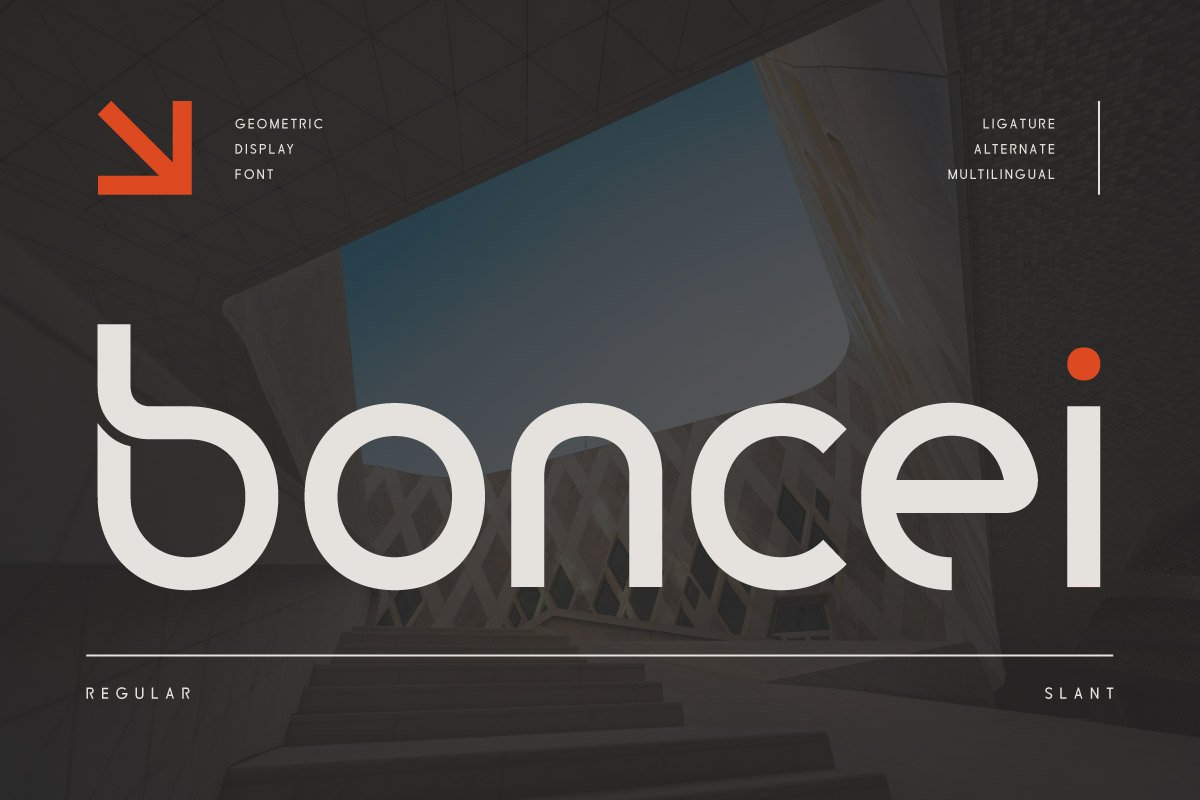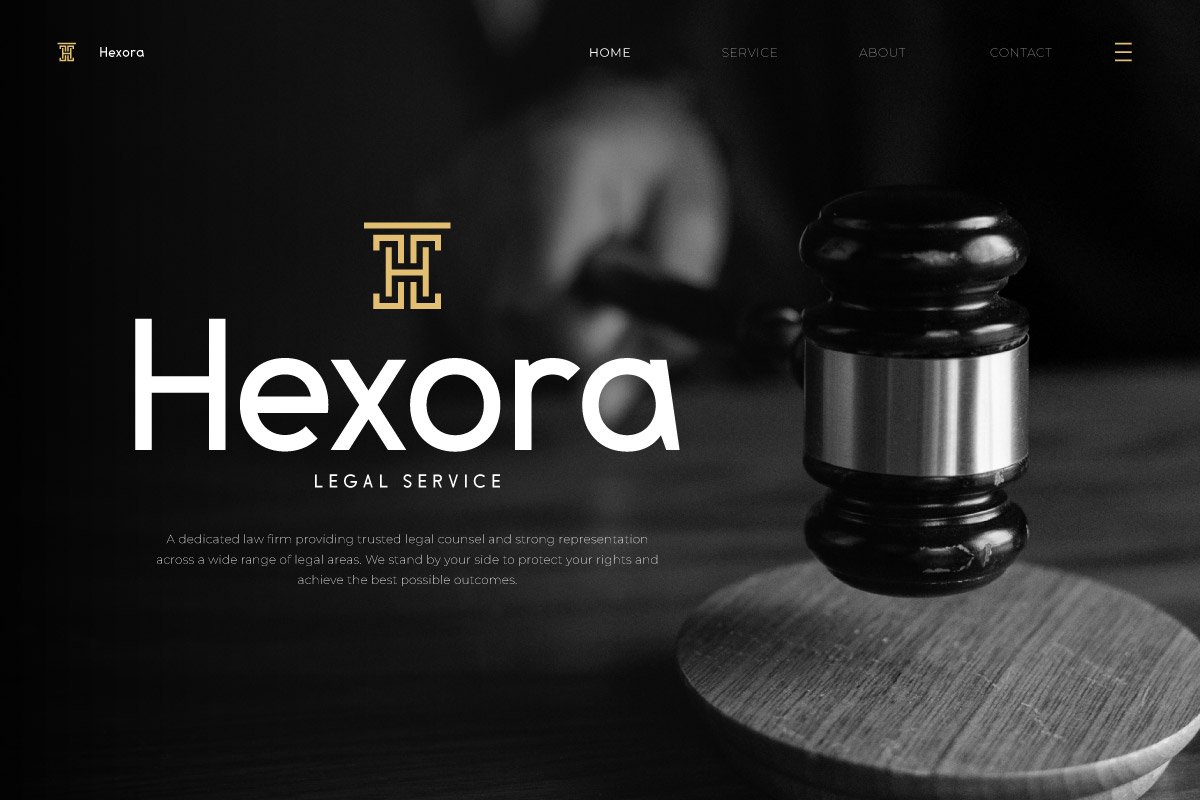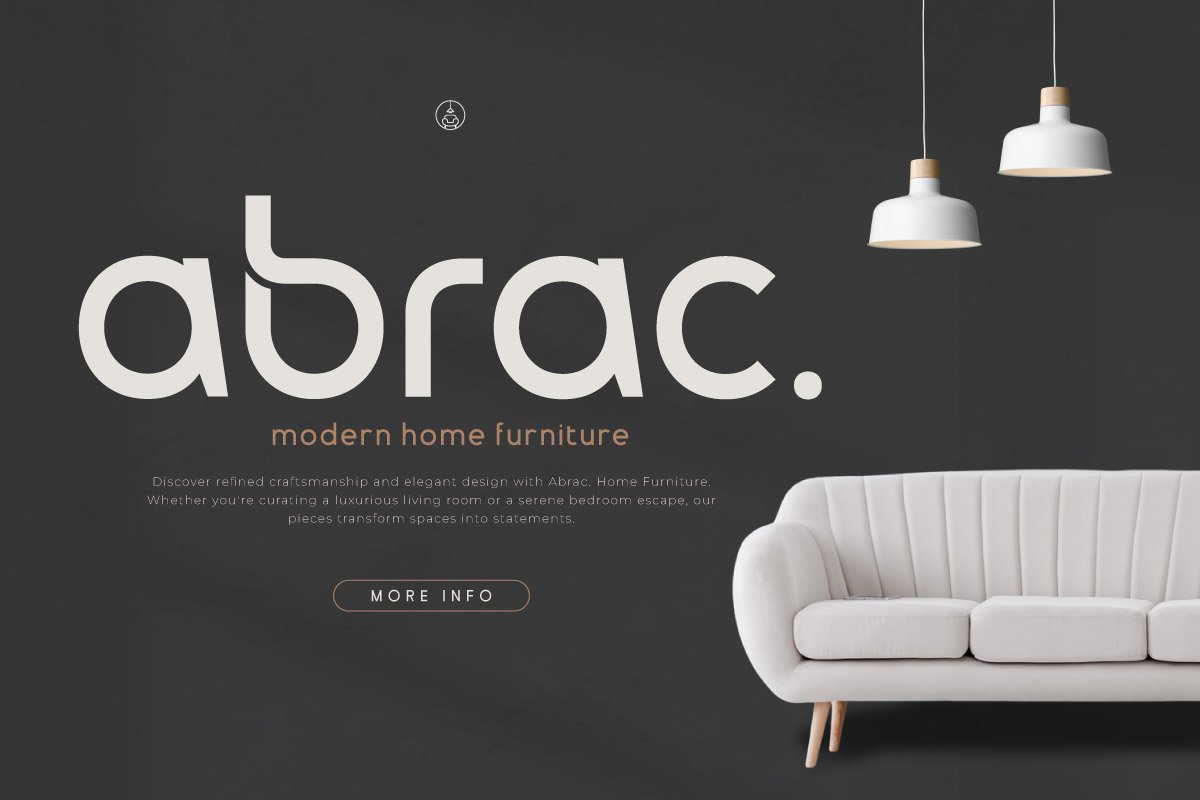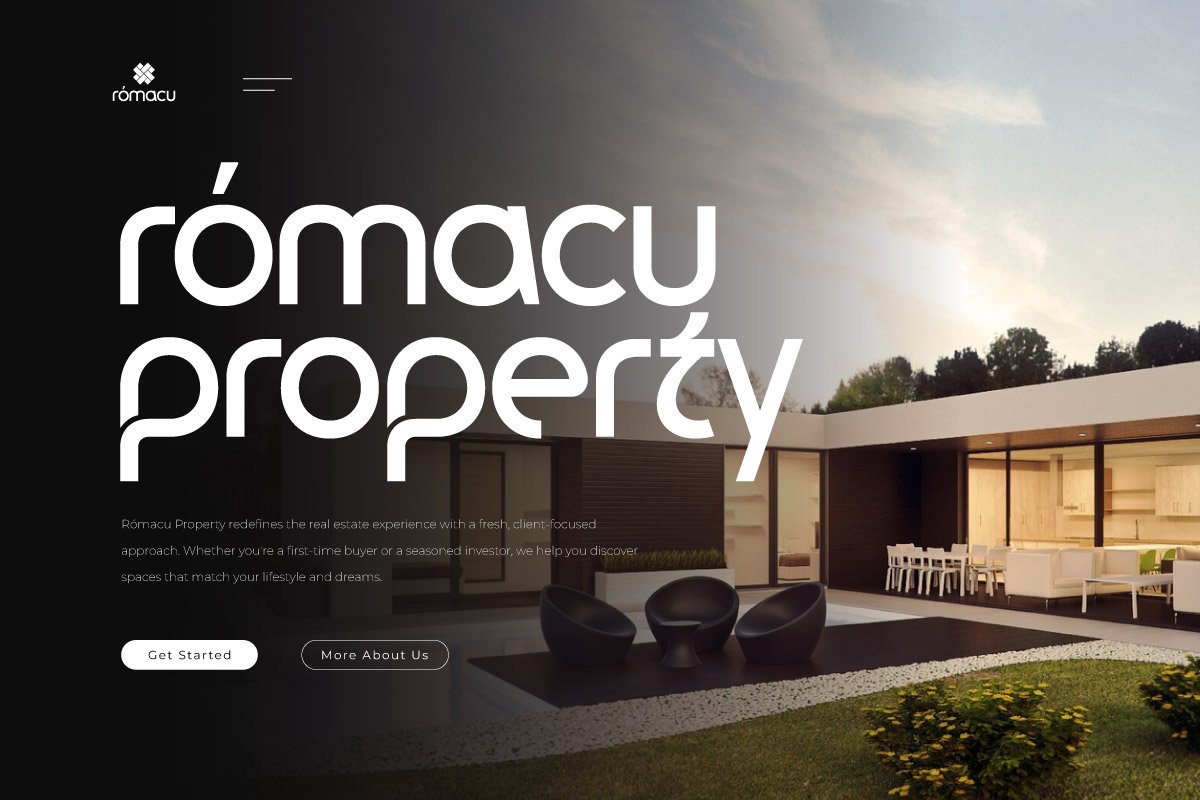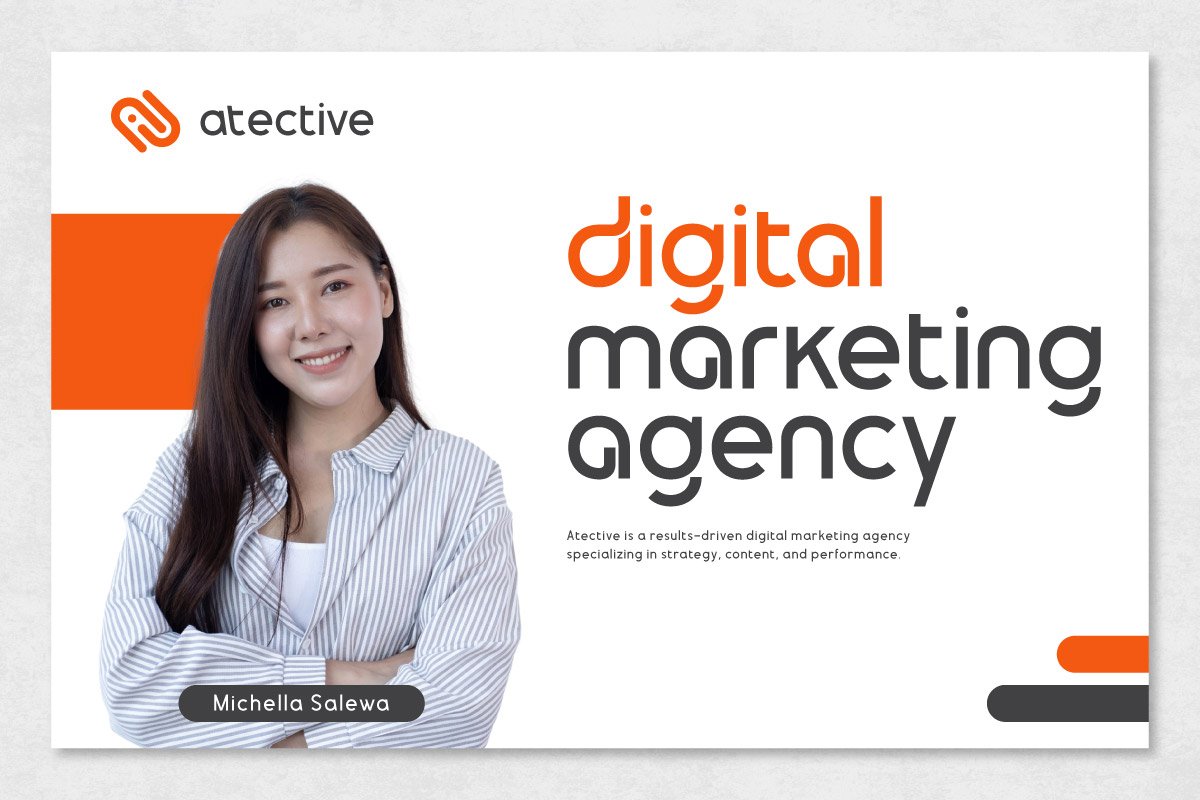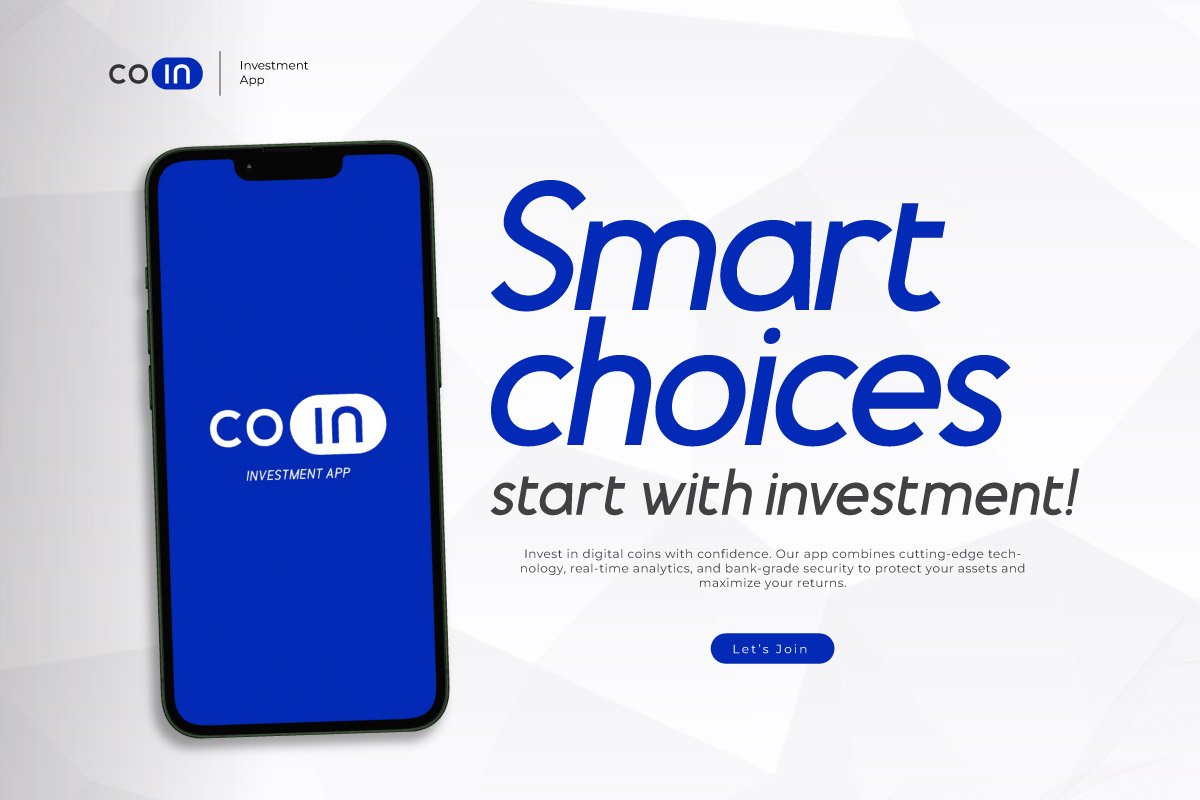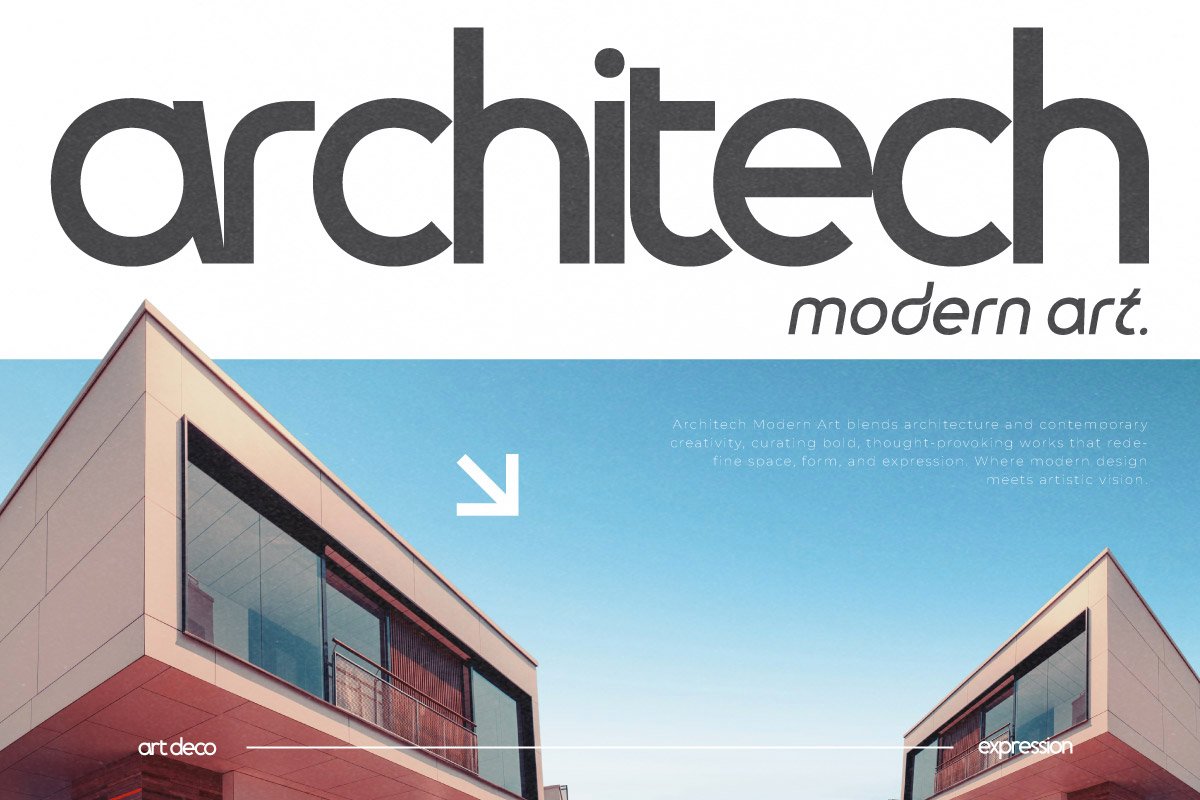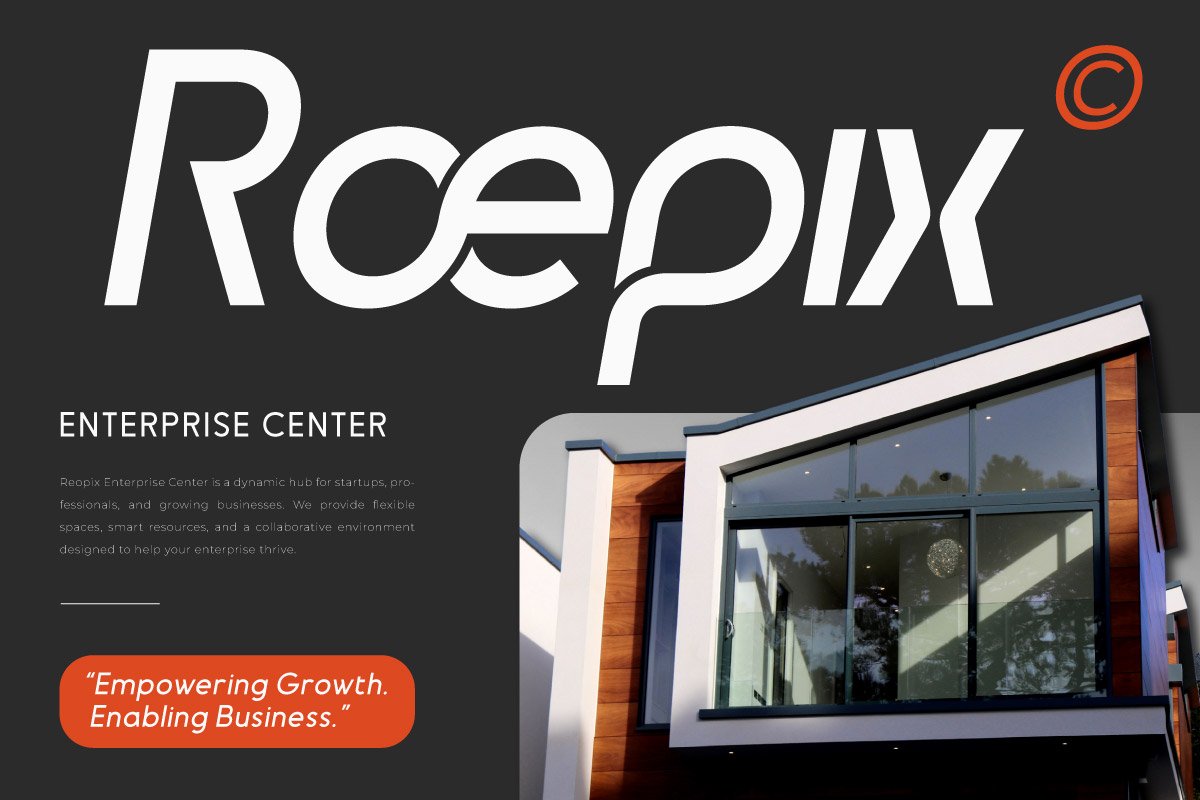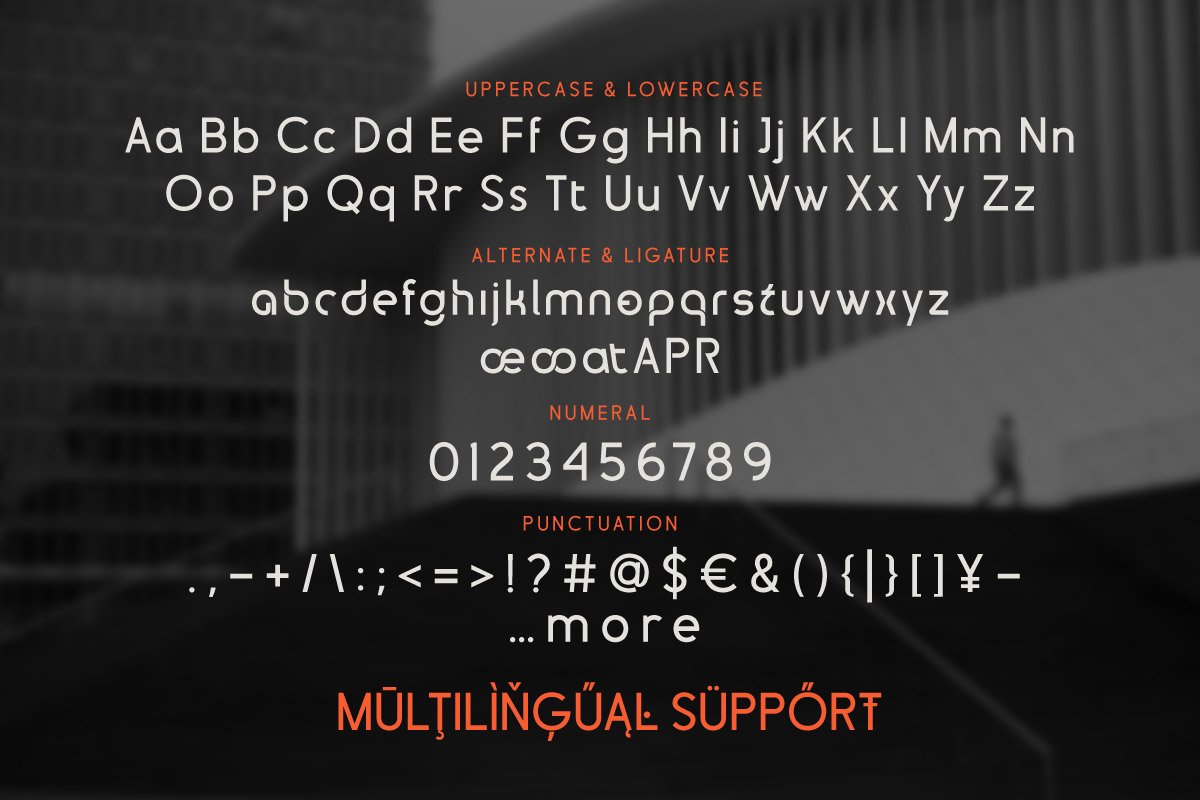
Building a solid business visual identity starts with choosing the right typography. In today’s competitive business world, a professional impression must be communicated from the very first second an audience sees your brand — whether through a business card, a website, or a pitch deck in front of investors. One of the most efficient and effective ways to achieve that is by selecting the right typeface from day one. Boncei by Twinletter is a modern, geometric-style corporate font, designed specifically for branding, logos, and business identities that want to look clean, professional, and trustworthy. That clean, dependable feeling is exactly what’s meant by strong corporate identity — a consistent visual system that makes a business feel trustworthy at a glance.
As a corporate font, Boncei leans into precise lines and balanced geometric shapes. Every character is built with a tidy structure, delivering a clean, contemporary feel across every design application. This minimal yet versatile style makes Boncei an ideal choice for tech companies, startups, financial firms, or any brand that wants to communicate innovation, reliability, and modernity through typography.
The harmony of every letterform on Boncei keeps readability optimal, whether for print materials like business cards and brochures, or digital materials such as website headers and mobile apps. This is exactly why the font works well across media without losing visual consistency.
A well-chosen corporate font can build audience trust from the very first impression. When potential clients or investors see a clean, professional visual identity like the one Boncei offers, they subconsciously evaluate the credibility and quality of that brand’s service. This matters especially for startups still building their reputation amid tough market competition.
Beyond the main logo, Boncei can also be used consistently across every other brand element: investor presentations, official company documents, office signage, and digital marketing materials. Consistent use of a corporate font across every brand touchpoint strengthens visual recognition in the eyes of clients and business partners.
Many business owners are tempted to pick a flashy decorative font to grab attention, when in reality, a clean, neutral corporate font is far more effective at building trust for long-term use. Decorative fonts tend to feel “tired” quickly when used repeatedly over long periods, while a geometric font like Boncei actually grows stronger with consistent use.
Beyond that, a minimalist corporate font is also easier to adapt across sizes and media, from a tiny browser favicon to a large billboard in front of an office. This flexibility makes investing in a quality corporate font like Boncei far more cost-effective long-term compared to redesigning your visual identity every few years.
For the best results, use this corporate font consistently across all brand materials, from logo to website to internal company documents. Pair it with neutral color palettes like blue, gray, or white to reinforce the professional, modern impression you want to convey.
Avoid mixing too many font types in one branding system — stick with Boncei as the primary font for headlines and logos, then combine it with a simple sans-serif font for body text so long documents like annual reports or business proposals remain easy to read.
Boncei is a sleek and modern geometric font crafted specifically for corporate branding, logo design, and visual identity systems. Designed with precision and balance, Boncei offers clean lines and structured shapes that exude professionalism and contemporary appeal.
Its minimalist and versatile letterforms make it a strong choice for technology companies, startups, financial firms, or any brand that wants to communicate innovation, reliability, and modernity. Each character is harmonized for excellent legibility, making it suitable for both print and digital applications—from business cards to web headers.
If you’re looking for a font that blends design clarity with geometric elegance, Boncei delivers a powerful visual presence that enhances your brand’s credibility and style.